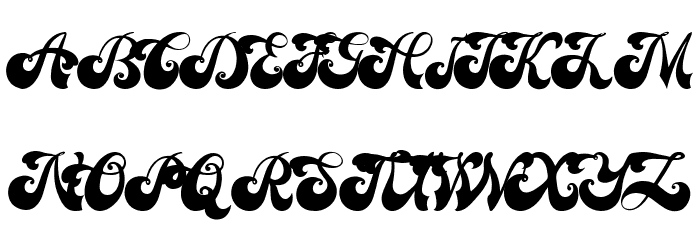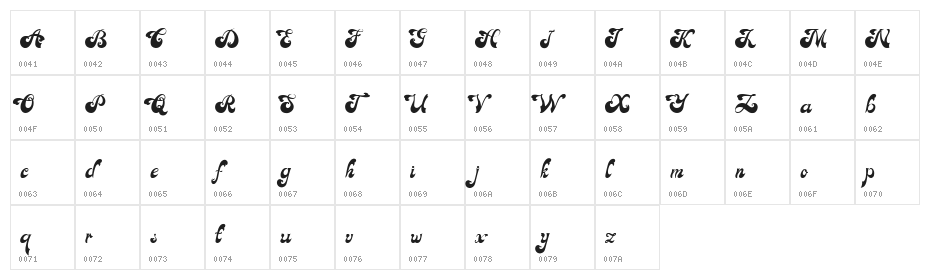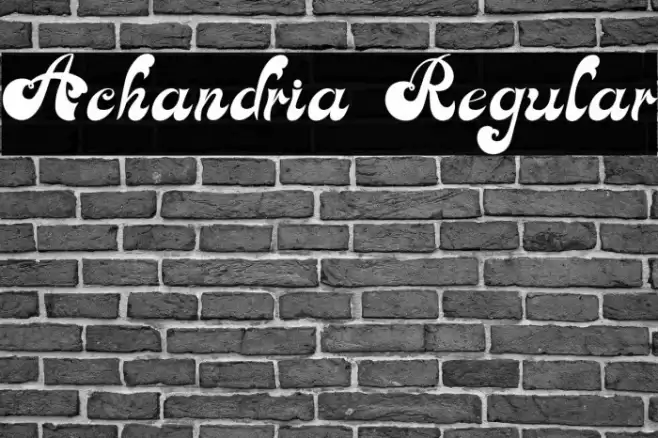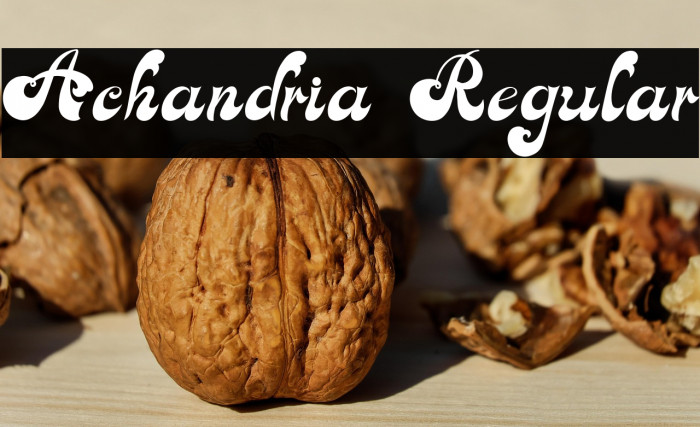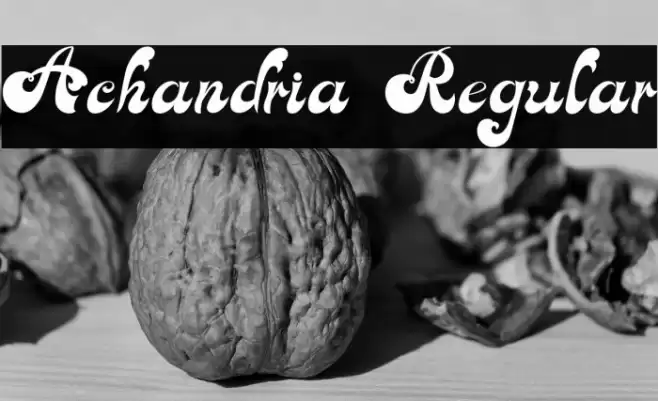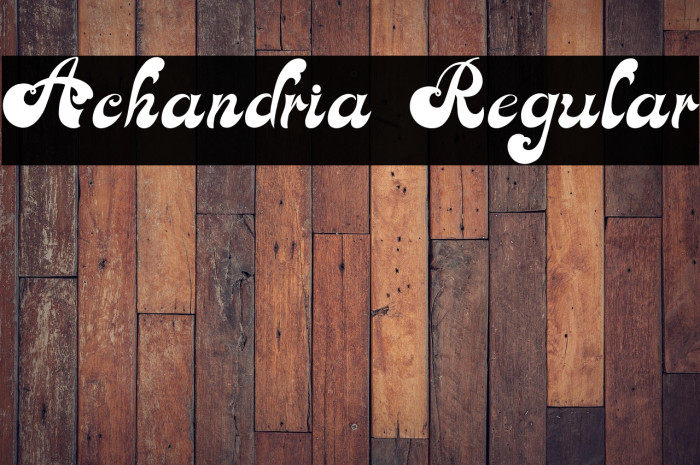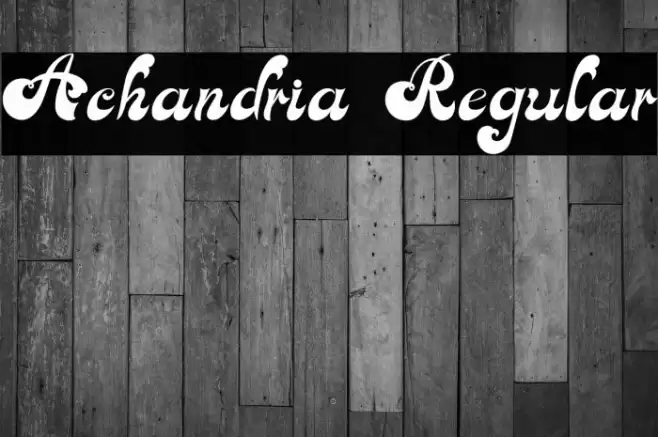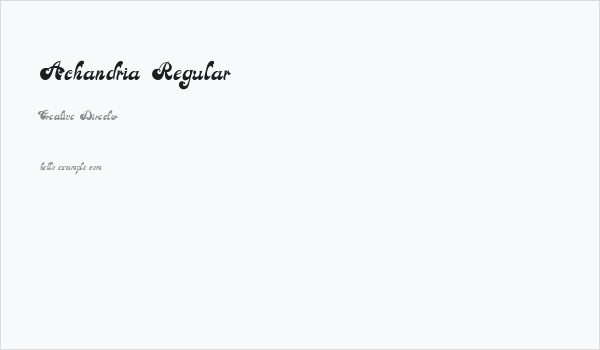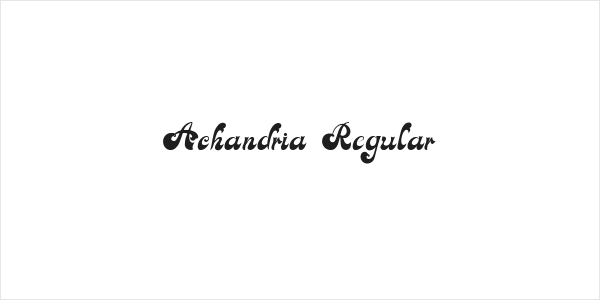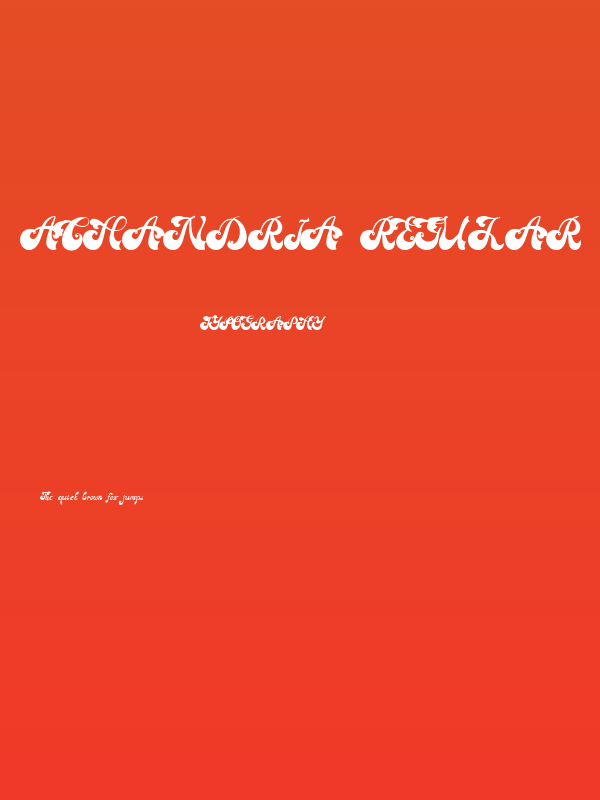
Achandria Regular Font
This font features an elaborate and decorative style with swirling, ornate elements that give it a unique and artistic flair. The characters are bold and have a high contrast between thick and thin strokes, creating a dramatic and eye-catching appearance. The uppercase letters are particularly intricate, with additional loops and embellishments that enhance their visual impact. The lowercase letters maintain a consistent style, though they are slightly less ornate. Overall, this font exudes a sense of elegance and sophistication, making it suitable for projects that require a touch of luxury and creativity.
| Proposed Projects | Ideal for wedding invitations, luxury branding, artistic posters, and decorative headlines. |